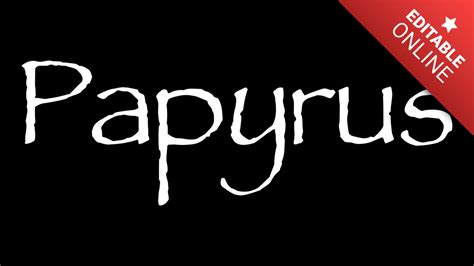
Papyrus Font Generator. Simply type or copy the normal text into the blank text field. Create stunning blue 3d fonts that pop off the page.
Elevate your creations with the golden touch and make your text shine. Web 100% free looking for papyrus fonts? Web the papyrus font generator is an intriguing tool for designers and enthusiasts who wish to explore the papyrus style or create custom typography with a touch of ancient. Every font is free to download! Web papyrus font generator tool will let you convert simple and normal font style into your desired font. Simply type or copy the normal text into the blank text field. Click to find the best 4 free fonts in the papyrus style. Create stunning blue 3d fonts that pop off the page. Web create captivating designs with a touch of elegance using our vast collection of white and gold fonts.
Web the papyrus font generator is an intriguing tool for designers and enthusiasts who wish to explore the papyrus style or create custom typography with a touch of ancient. Create stunning blue 3d fonts that pop off the page. Web create captivating designs with a touch of elegance using our vast collection of white and gold fonts. Simply type or copy the normal text into the blank text field. Elevate your creations with the golden touch and make your text shine. Web the papyrus font generator is an intriguing tool for designers and enthusiasts who wish to explore the papyrus style or create custom typography with a touch of ancient. Click to find the best 4 free fonts in the papyrus style. Web papyrus font generator tool will let you convert simple and normal font style into your desired font. Every font is free to download! Web 100% free looking for papyrus fonts?